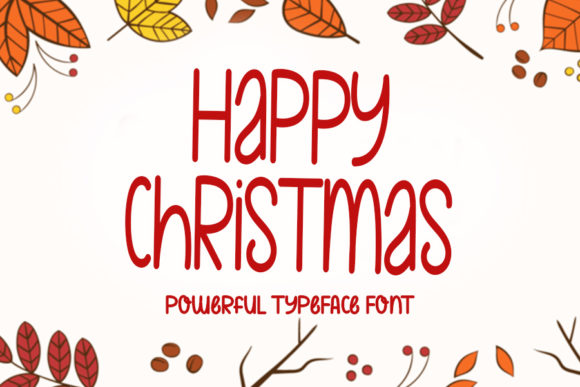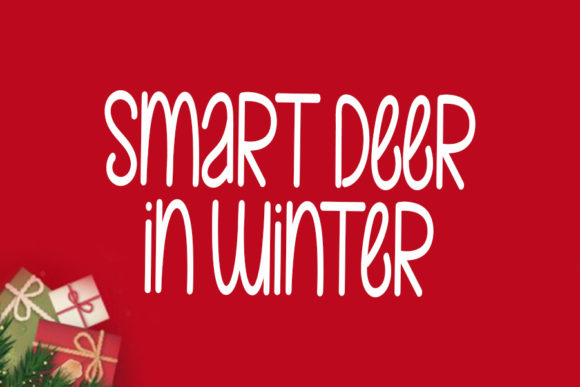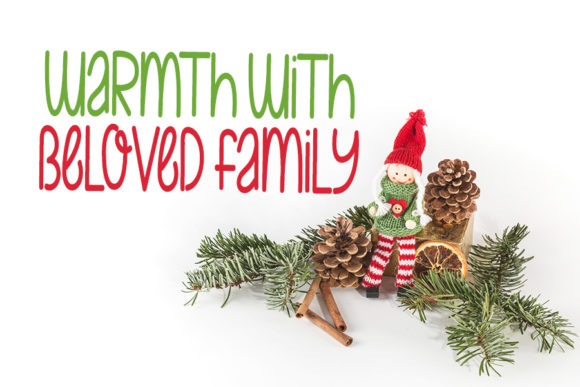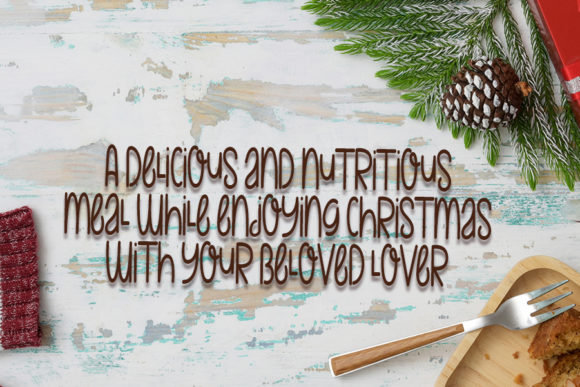
About Happy Christmas Font
Happy Christmas is a neat, clean and friendly handwritten font. It is ideal for holiday-themed greeting cards and for any crafting project that requires a warm touch.